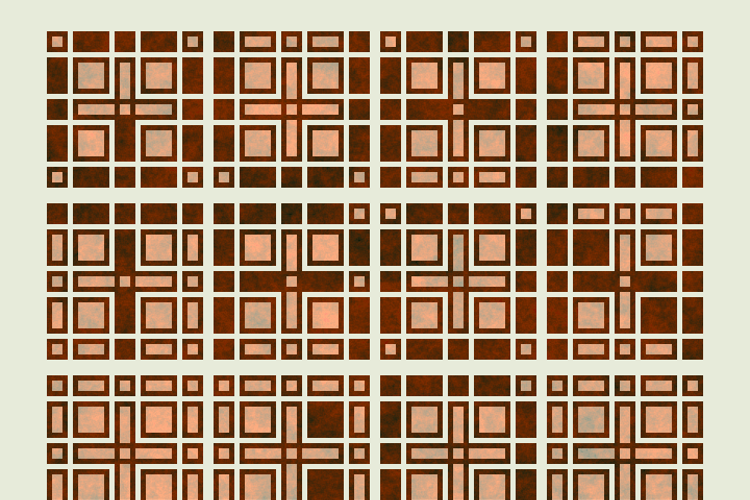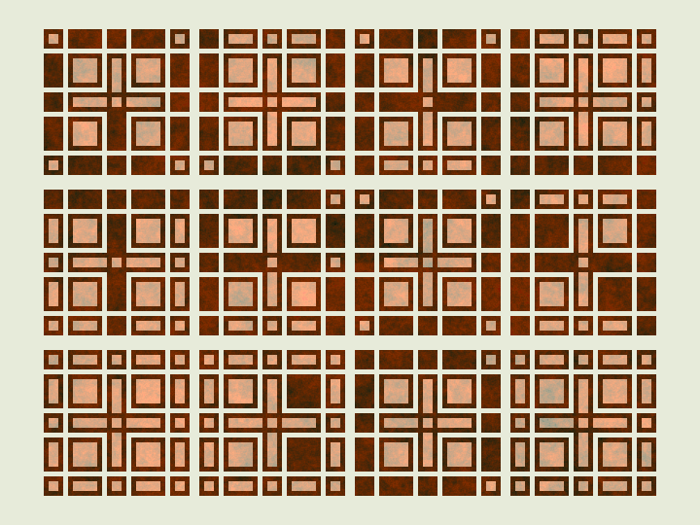
Qualtron Font
by Pixel Kitchen
Experimental 24-segment display or massive monochrome Mondrian matrix. Pixel compatible!
Original size: 20.75pt (When not using antialiasing, use multiples of this size for pixel perfection)